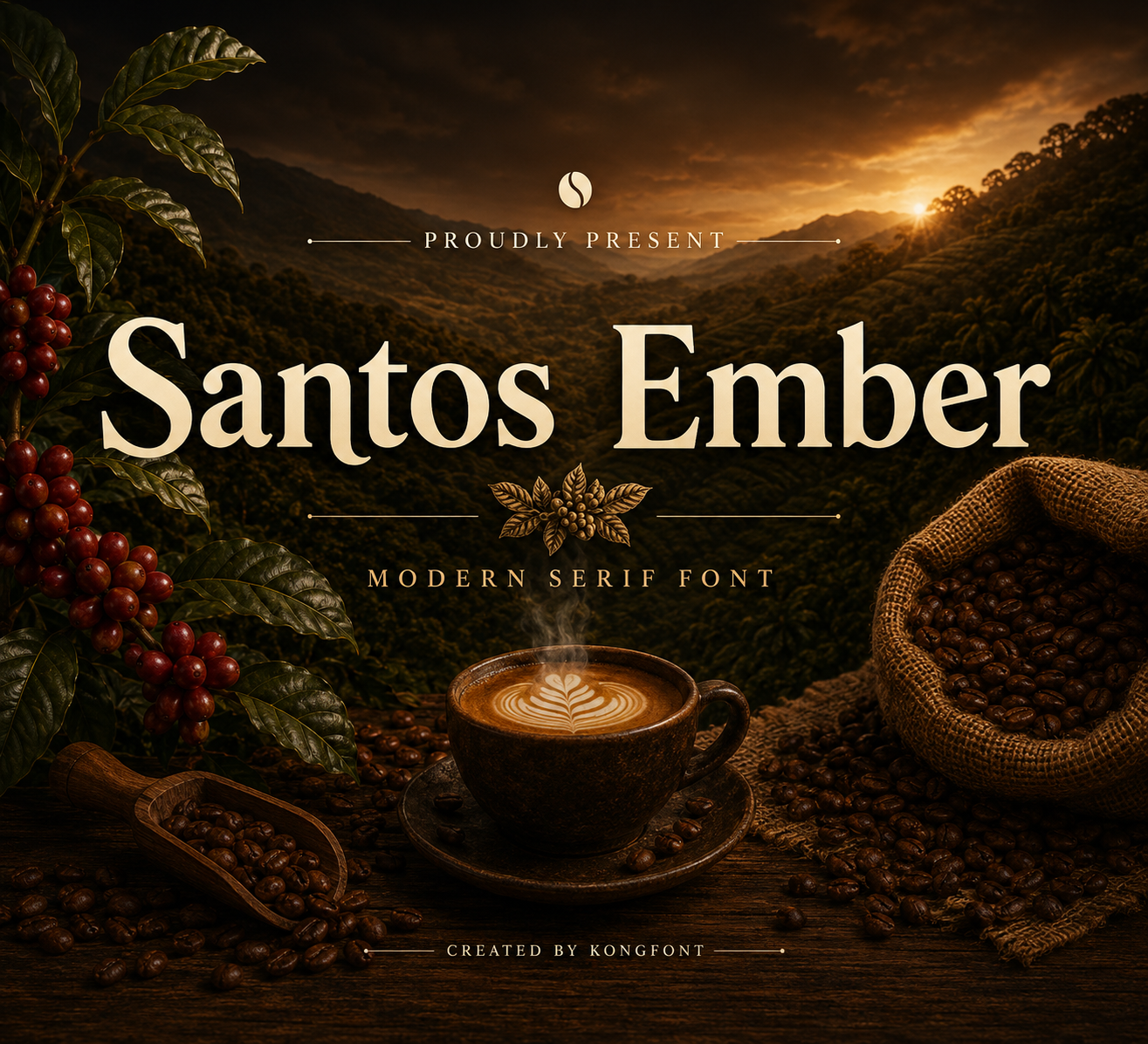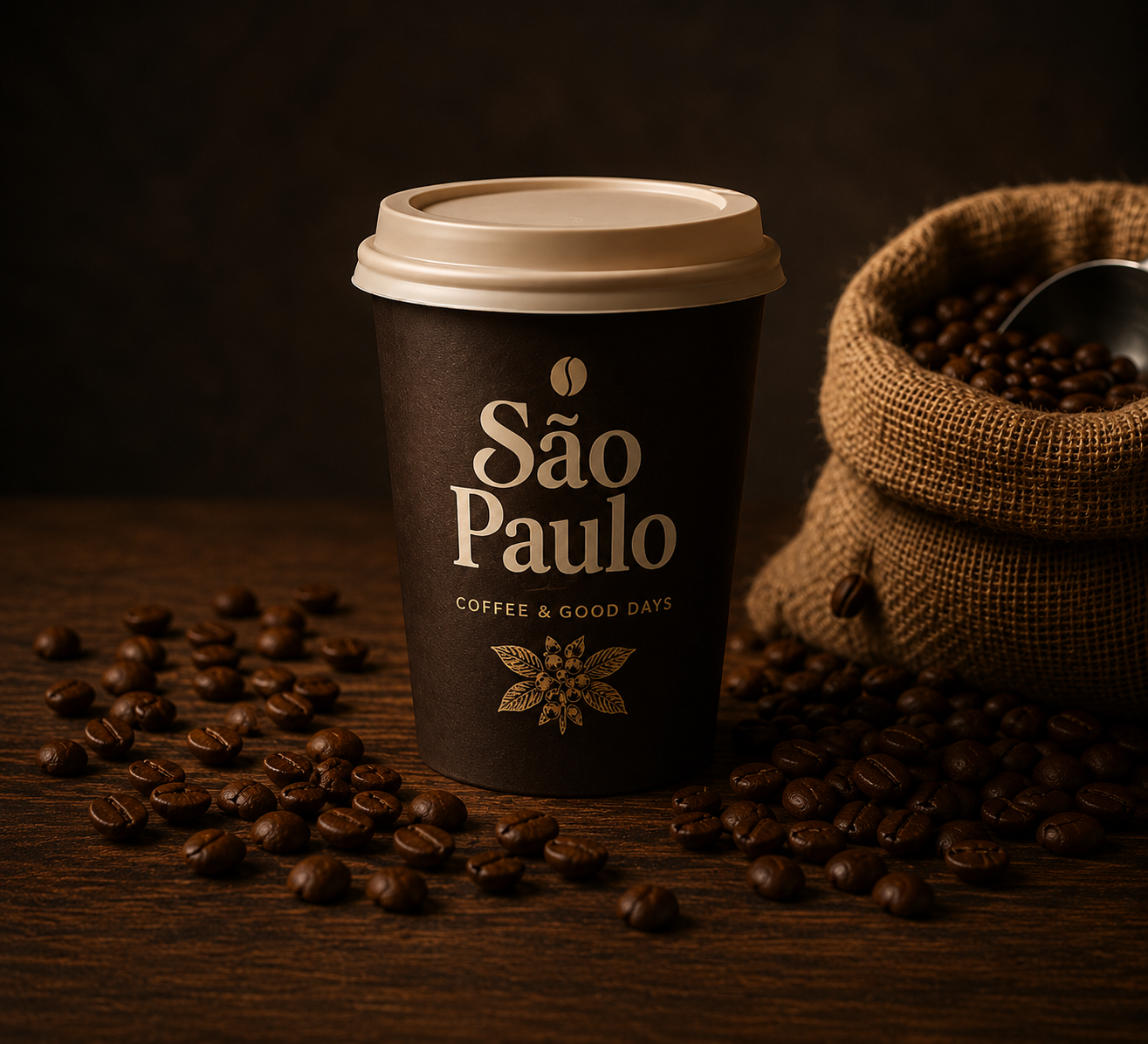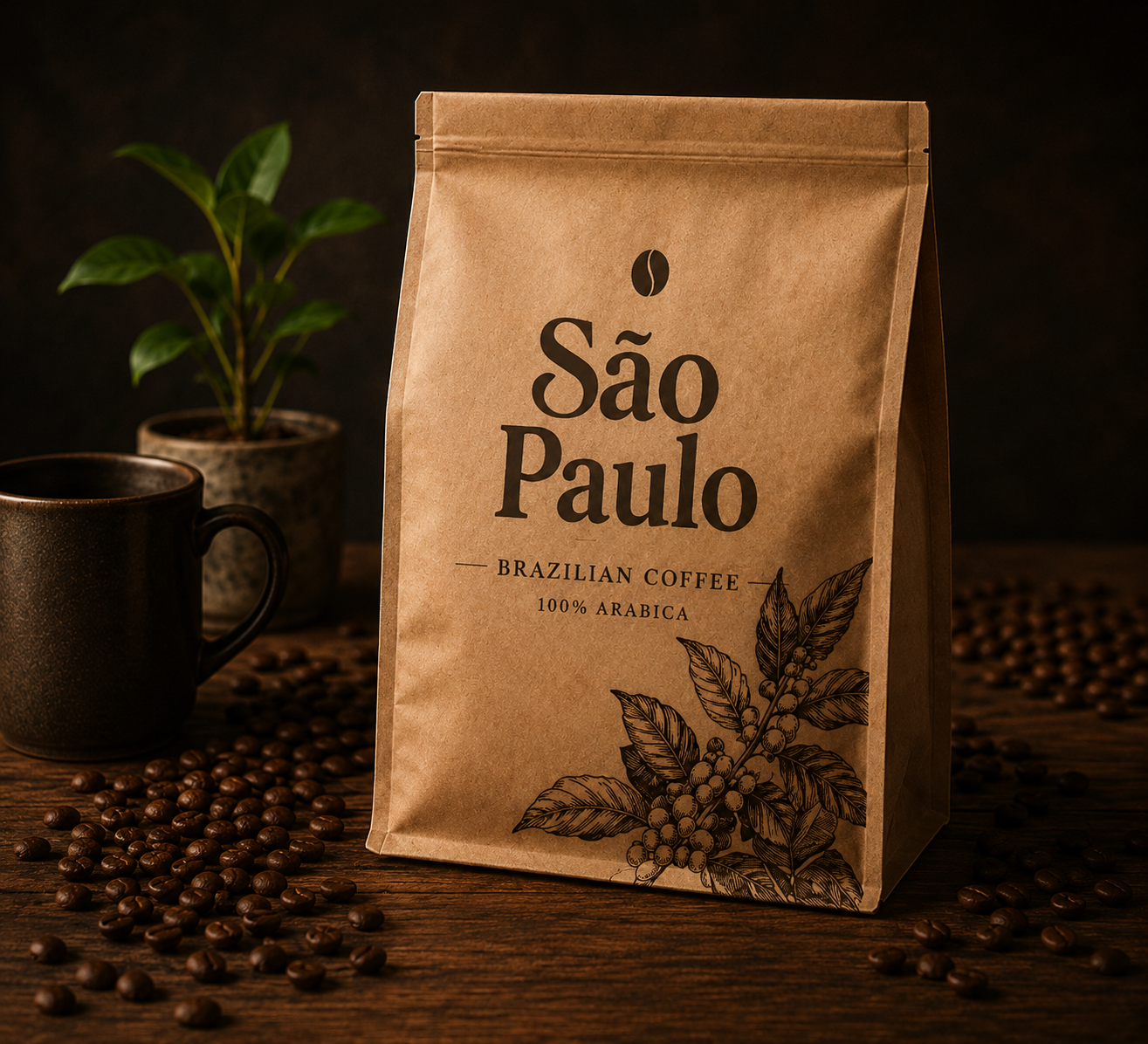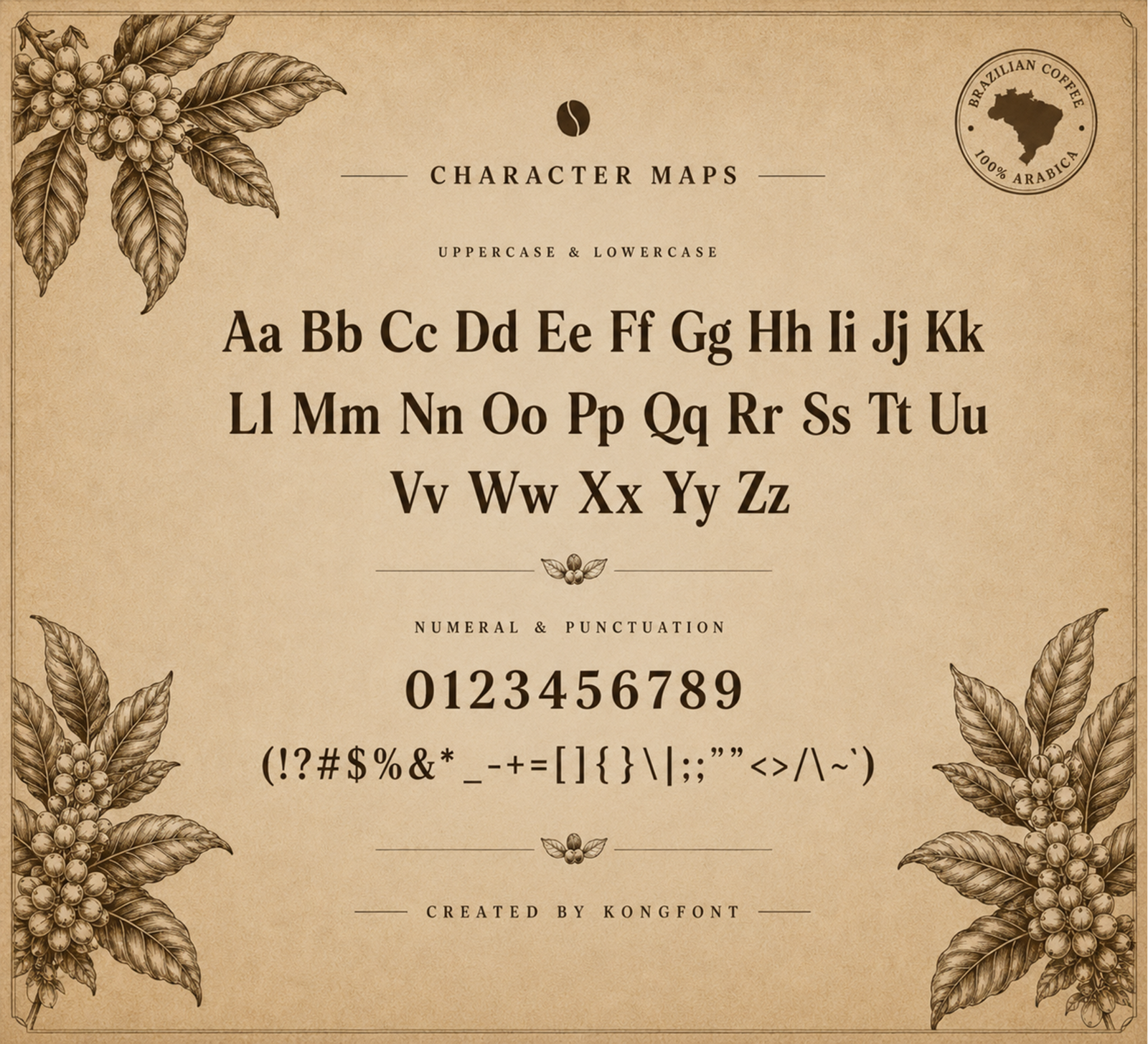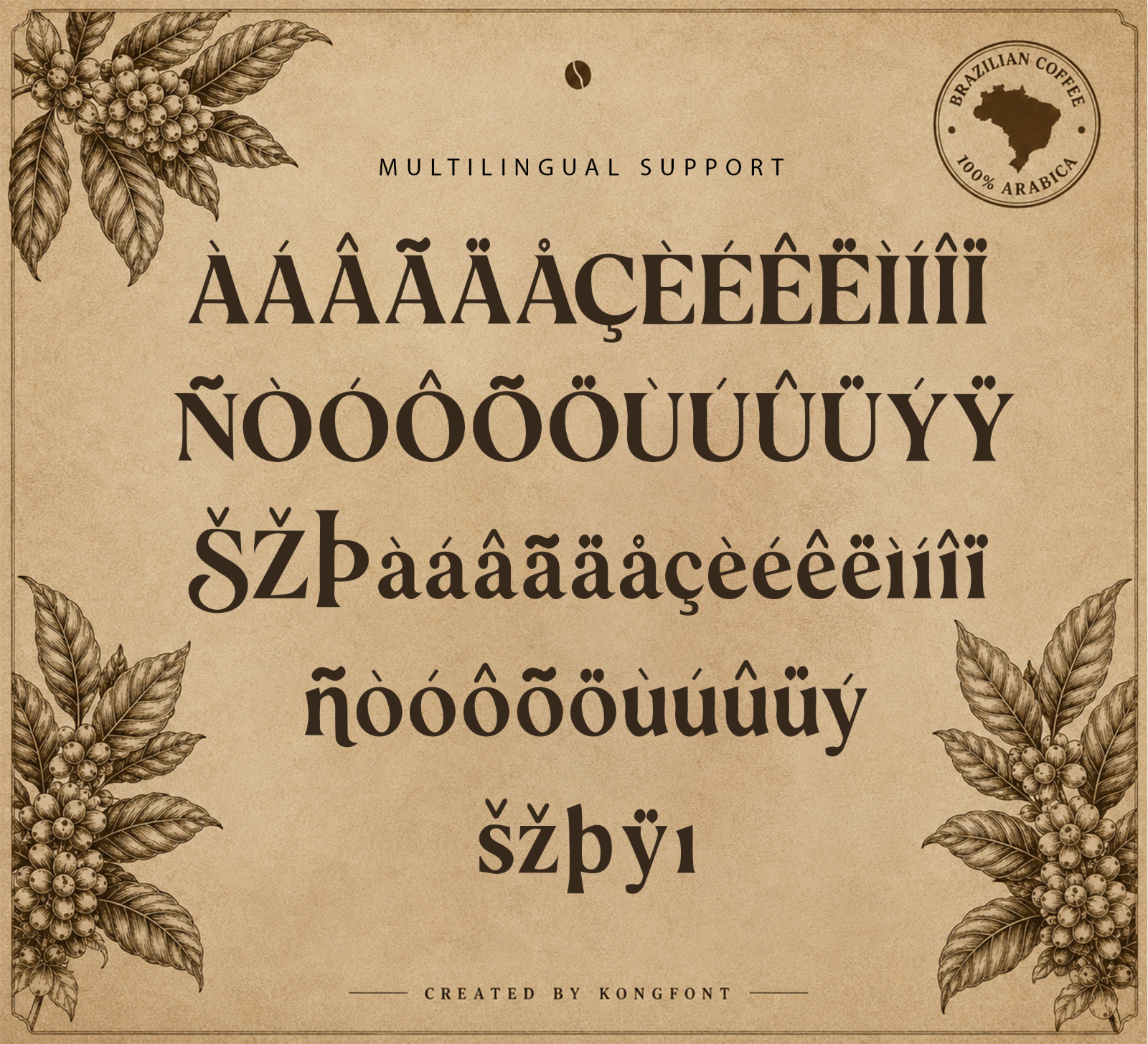
Santos Ember is a modern serif font with bold letterforms, smooth curves, and a clean contemporary style. Its strong yet elegant appearance makes it perfect for eye-catching headlines and stylish branding projects.
• Branding
• Logos
• Business cards
• Blog headers
• Quotes
• Editorial titles
• Packaging
• Creative typography